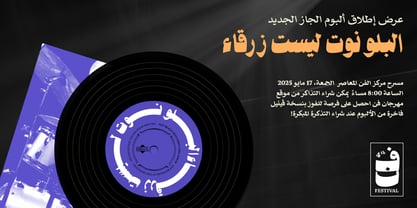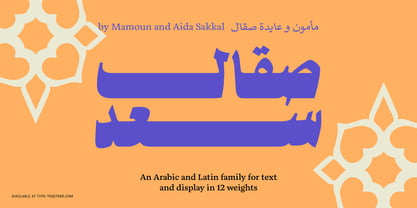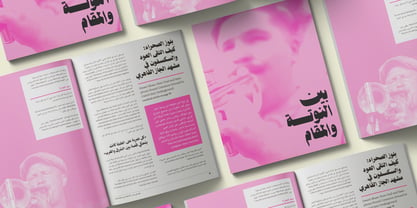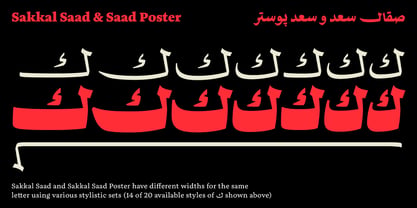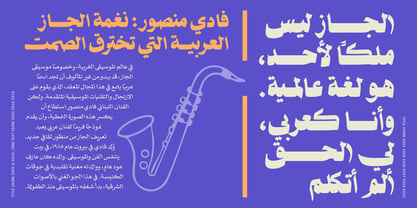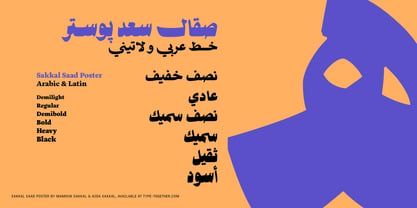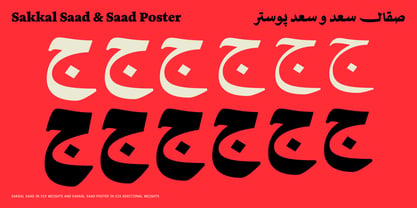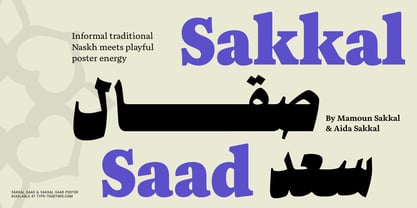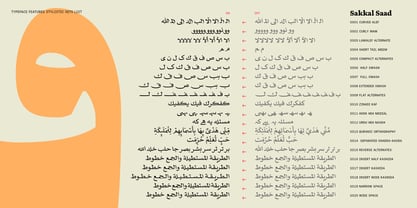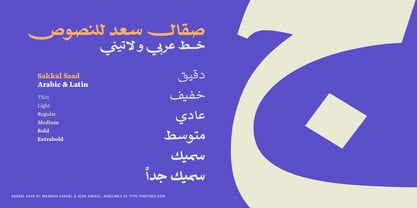
Sakkal Saad Poster
The Sakkal Saad Poster Font Family was designed by Mamoun Sakkal and published by TypeTogether. Sakkal Saad Poster contains 6 styles and family package options. More about this family
Designed by Dr. Mamoun Sakkal and Aida Sakkal, the Sakkal Saad font family is a friendly, handwritten Naskh with both a modern feel and a nostalgic vibe. Inspired by the energetic and expressive typography of Middle Eastern newspapers, magazines, and posters from the 1960s–1980s, it captures the vibrancy and optimism of that era while adding a contemporary twist. Sakkal Saad and Sakkal Saad Poster combine for 12 total weights, providing a versatile design system. The two families share harmonised metrics and a rich set of OpenType features, which allows designers to move easily between text and display within the same project. The compact vertical proportions allow for space economy while maintaining legibility. In Sakkal Saad Poster, the heavier weights increase in contrast along the baseline stroke to take up more vertical space with a commanding presence that still only barely extends words horizontally across a line. Each style in the Sakkal Saad family contain over 3,000 glyphs and share the same extensive set of OpenType features, stylistic sets, and contextual alternates, which can be combined for compounded features. Sakkal Saad provides a wealth of options for text justification and graceful layout and compositions. For example, designers can extend or reshape letter tails with kashidas and special end pieces, select from multiple swash lengths including a compact version for tight spaces, and fine-tune spacing for smooth justification. This includes adjusting the space width or inserting three different widths of kashida via stylistic sets. Sakkal Saad combines modern typesetting with traditional aesthetics for perfect legibility and performance in any media format. The family is ideal for signage, branding, poetry, and long text settings, especially online and in books and magazines. With an included custom version of the award-winning Aneto Latin with Arabic-styled dots and punctuation, Sakkal Saad provides clarity and graphic style in multiscript design and communication, ensuring visual harmony across languages.